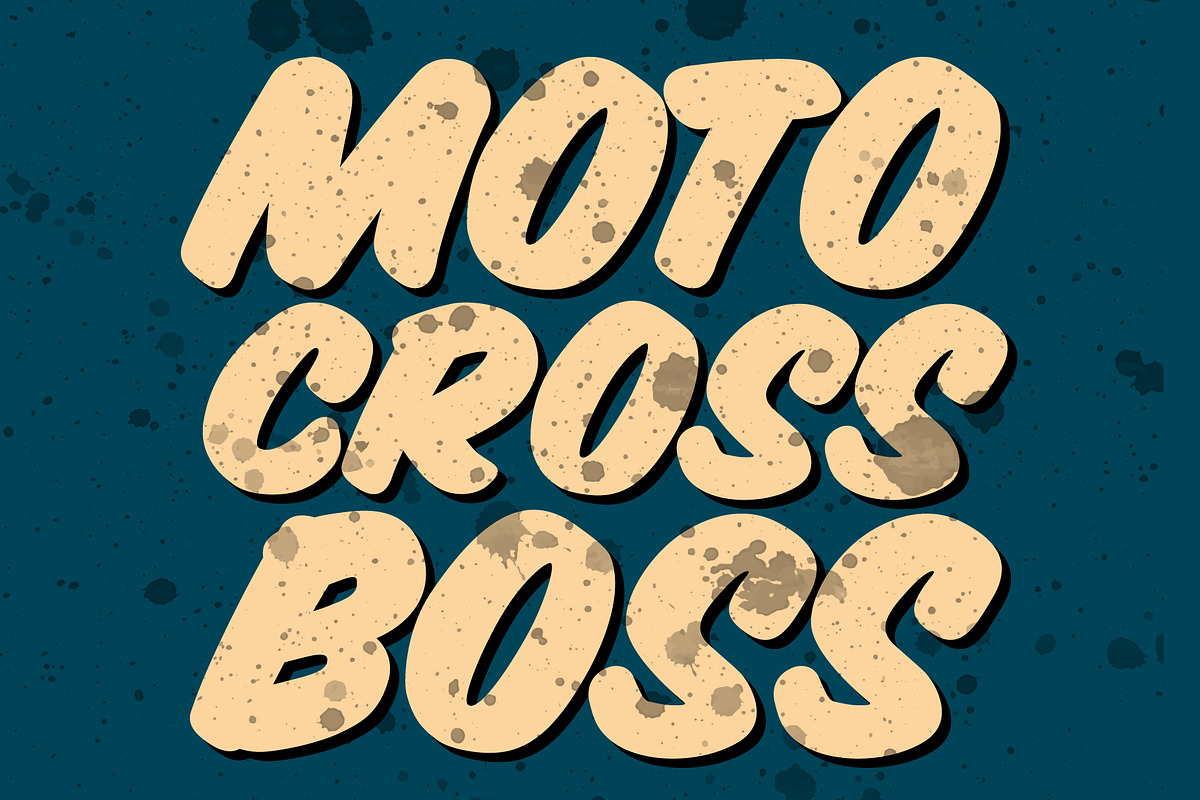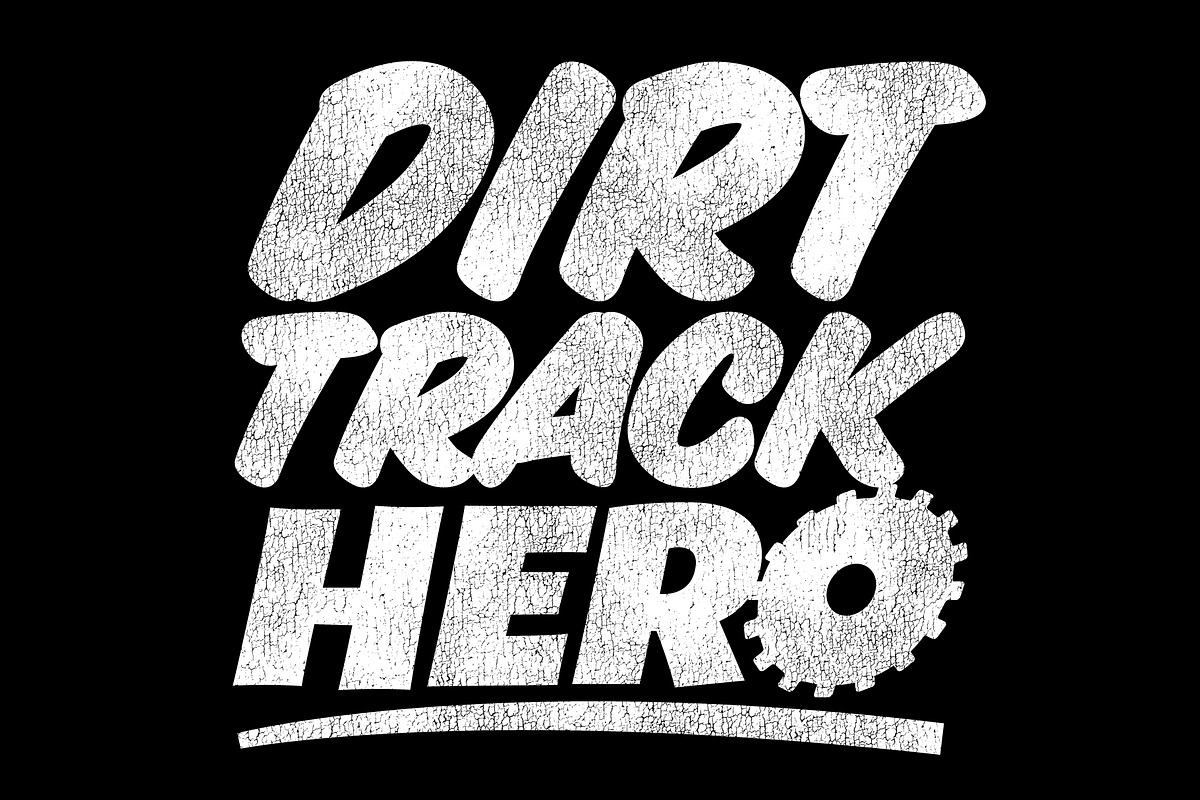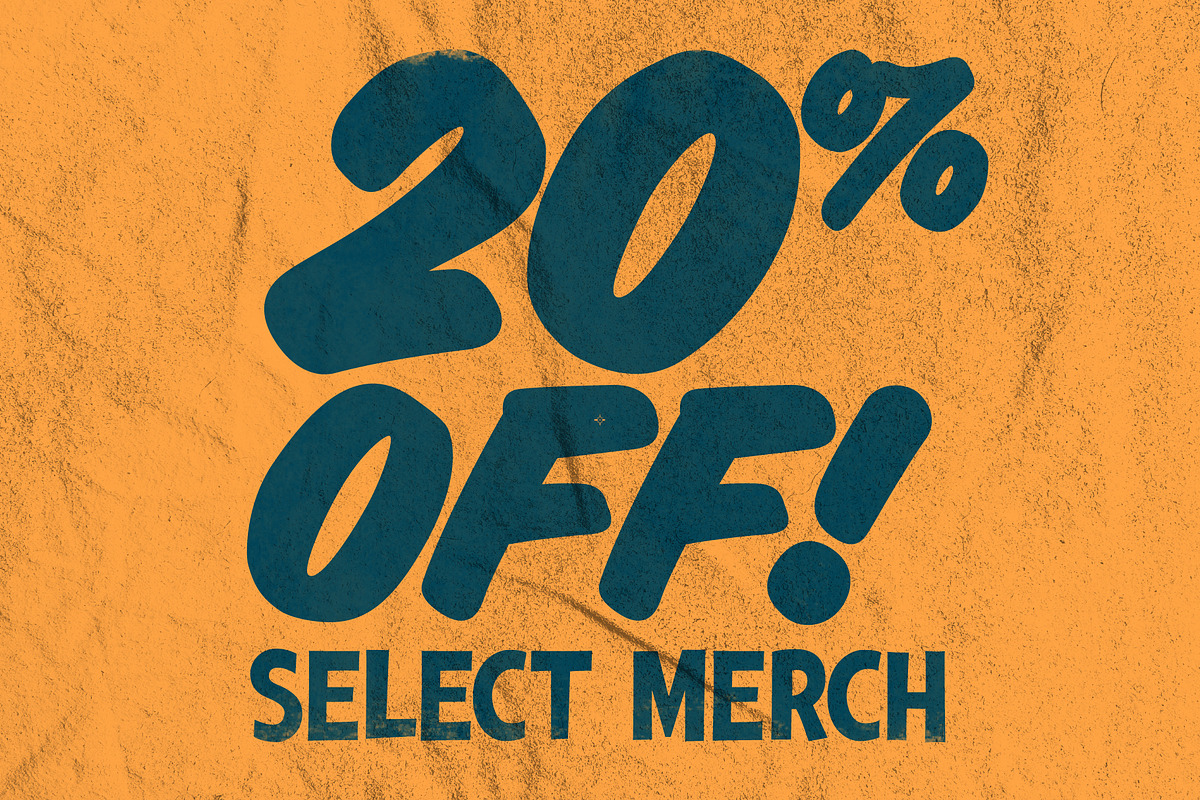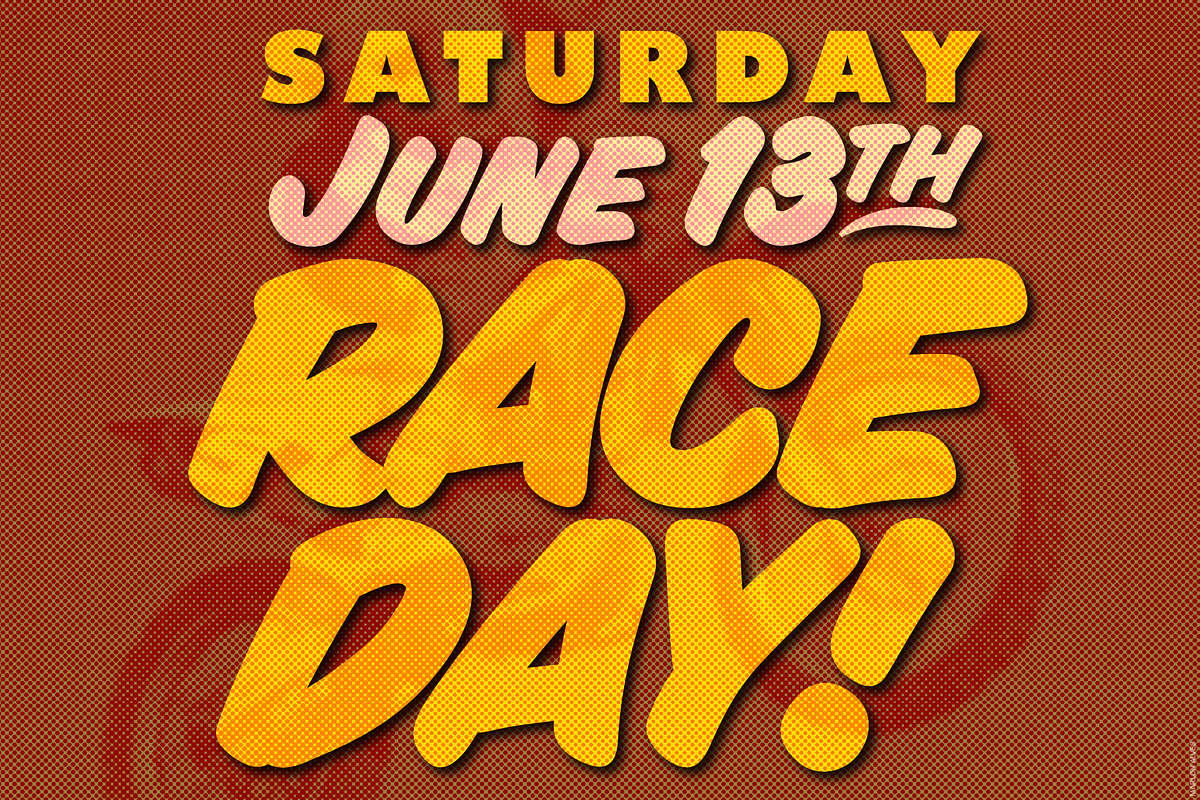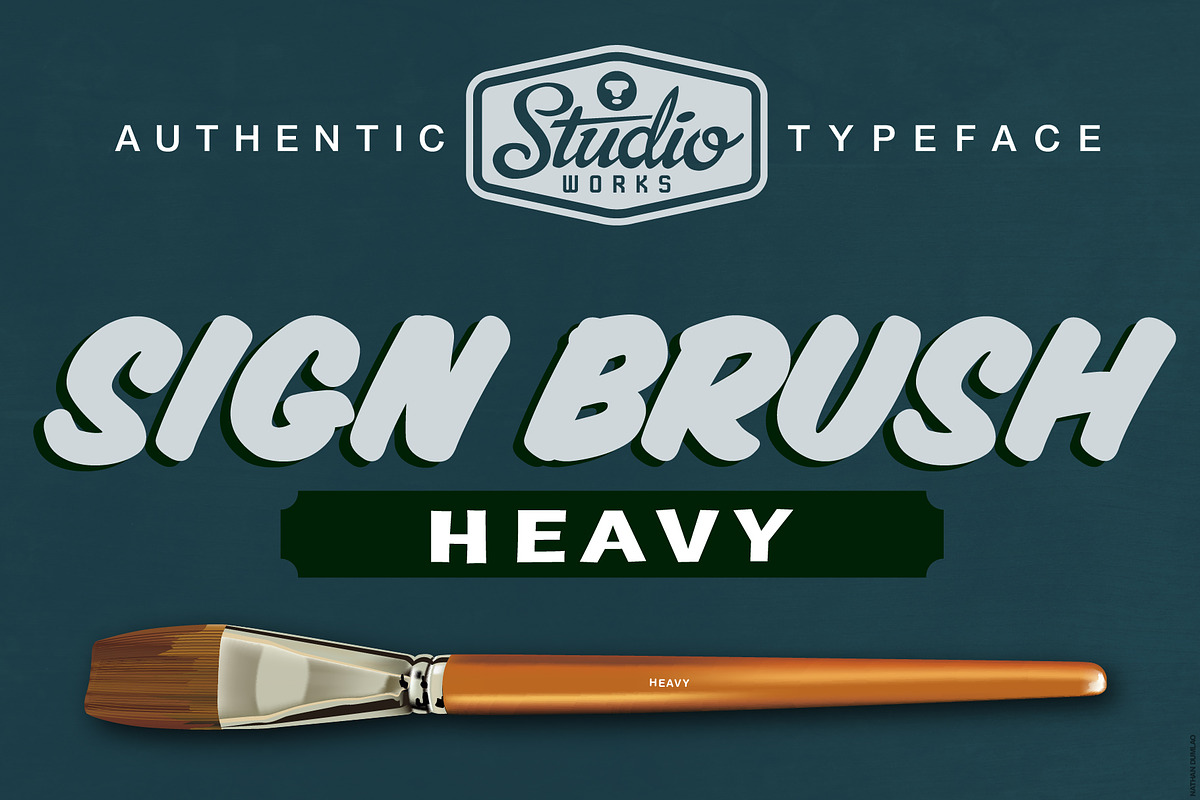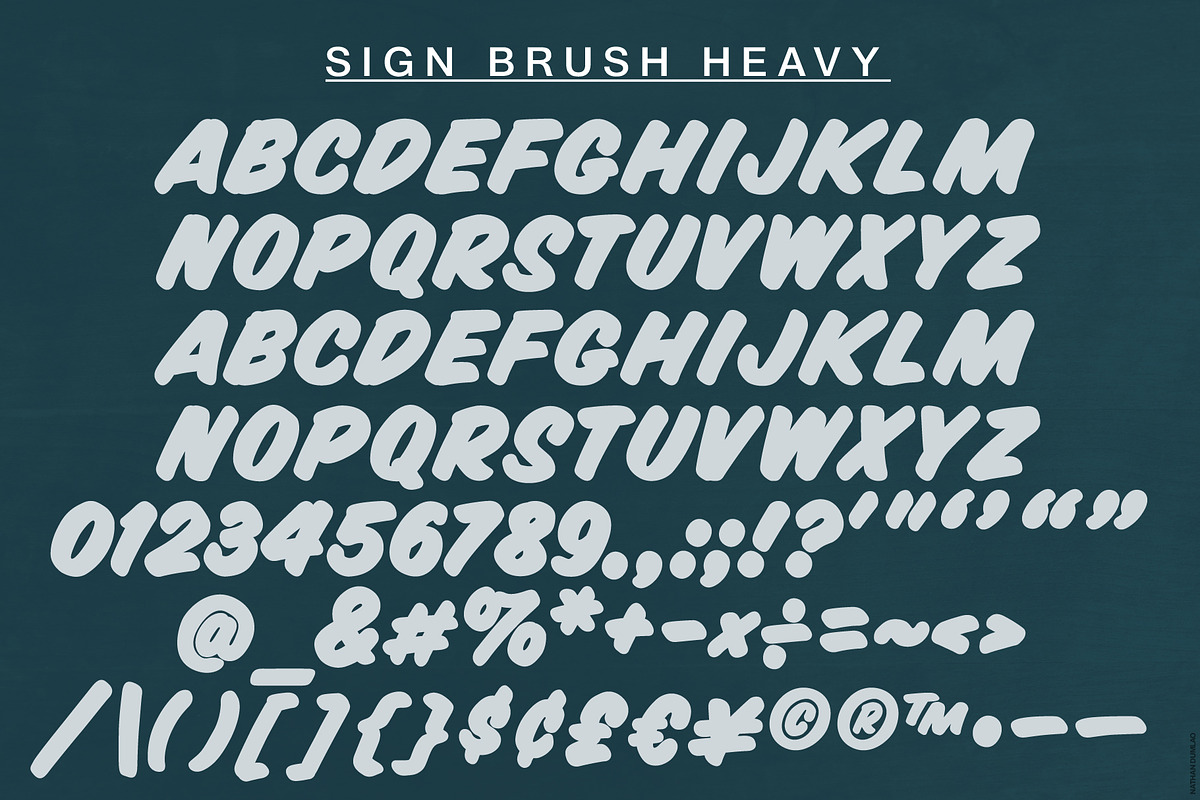
Sign Brush Heavy | Display Type
StudioWorks introduces •• S I G N • B R U S H • H E A V Y •• — our beefiest, one-stroke, casual display typeface!
Sign Brush Heavy is designed to mimic the brush lettering style of creative sign artists. Using the widest sable brush for the thick, single-stroke style created letters with husky strokes and bloated counters. Sign Brush Heavy recreates the ultra-bold appearance of hand-painted characters to emphasize your logos, headlines, posters and signage with unique authority.
Sign Brush Heavy includes:
- Single Case (capital) A-Z characters
- Numbers (0-9)
- Standard punctuation and glyphs
Use Sign Brush Heavy to punctuate your creations with attention-getting, brush-lettered emphasis swiftly and smoothly!